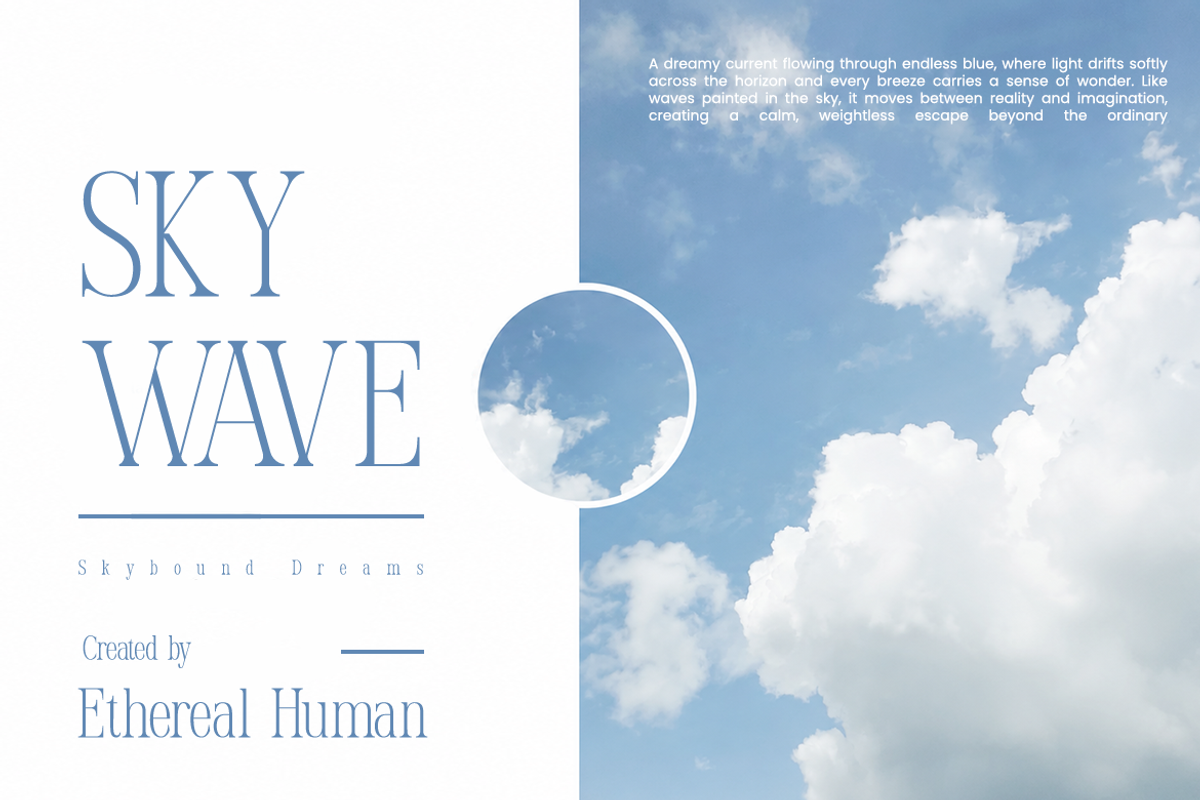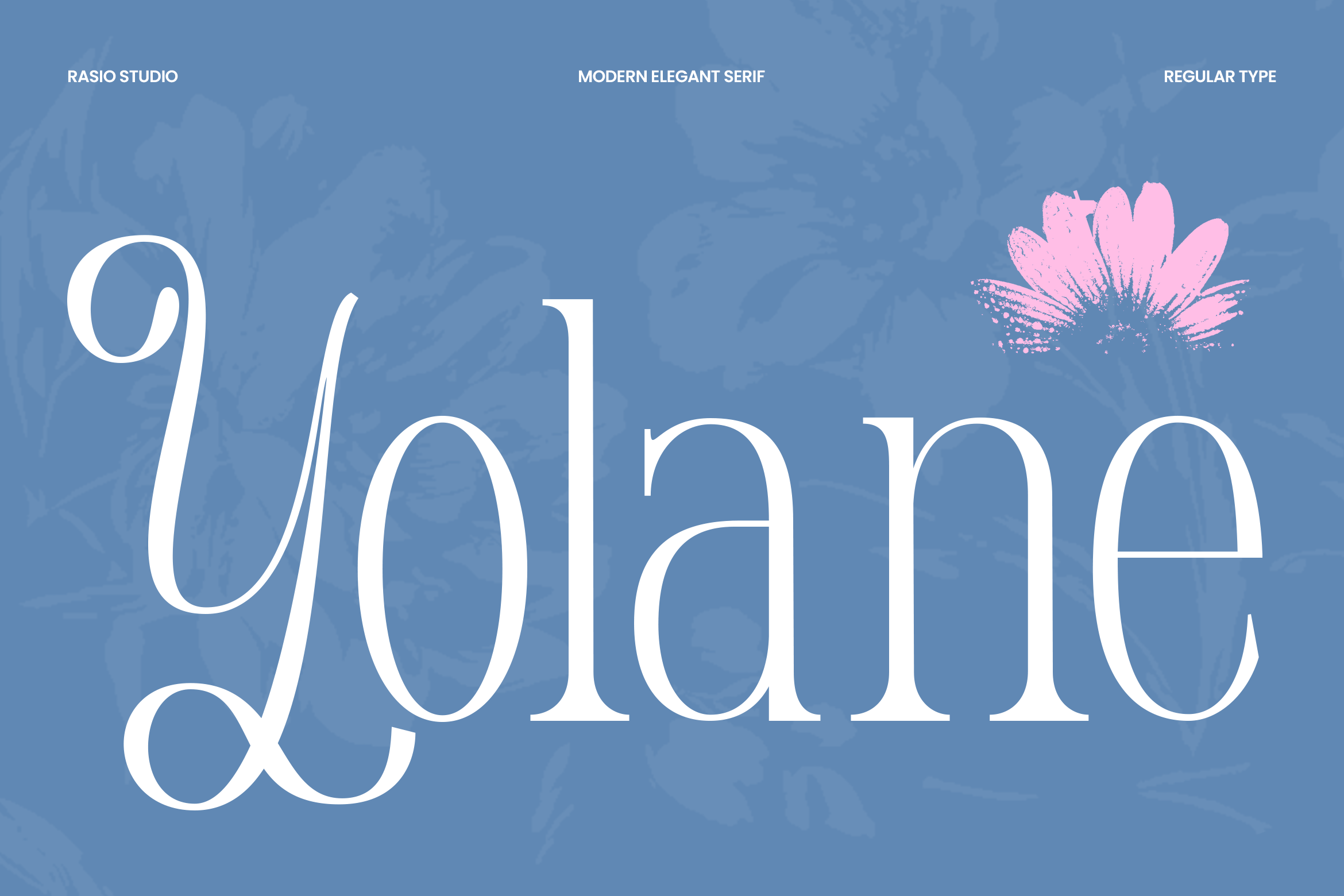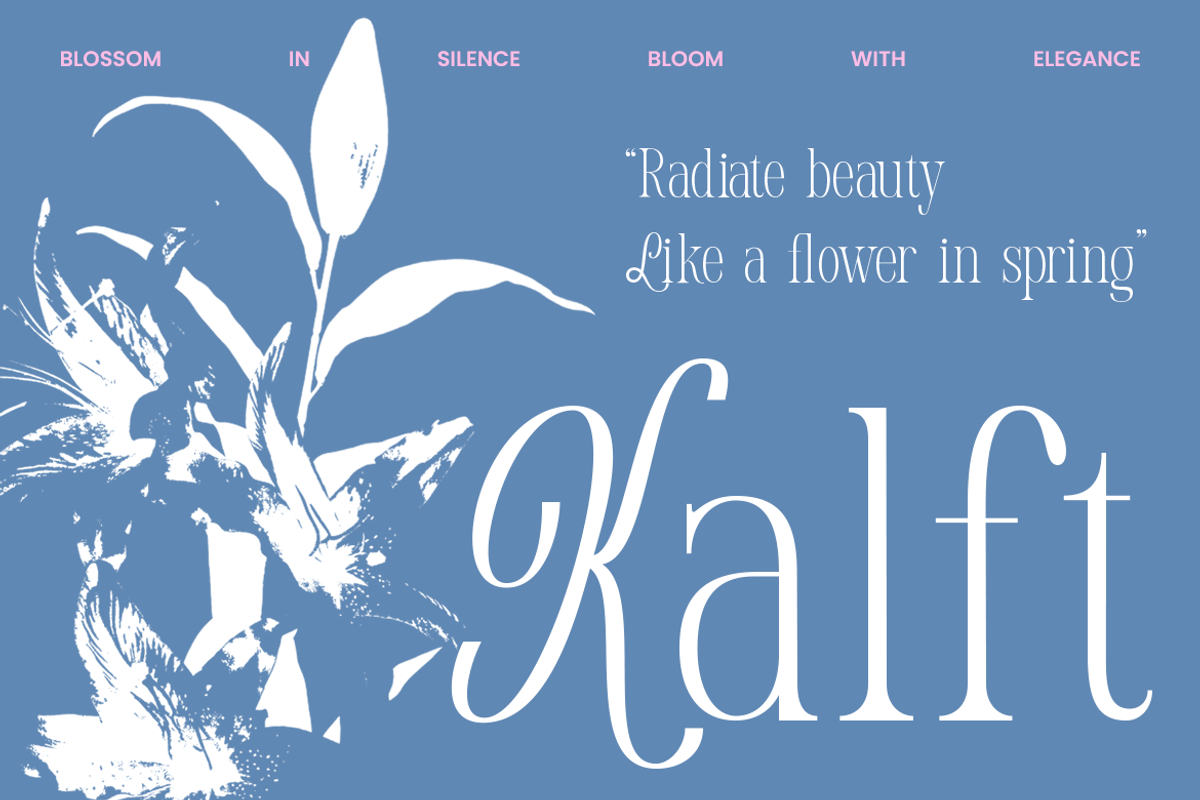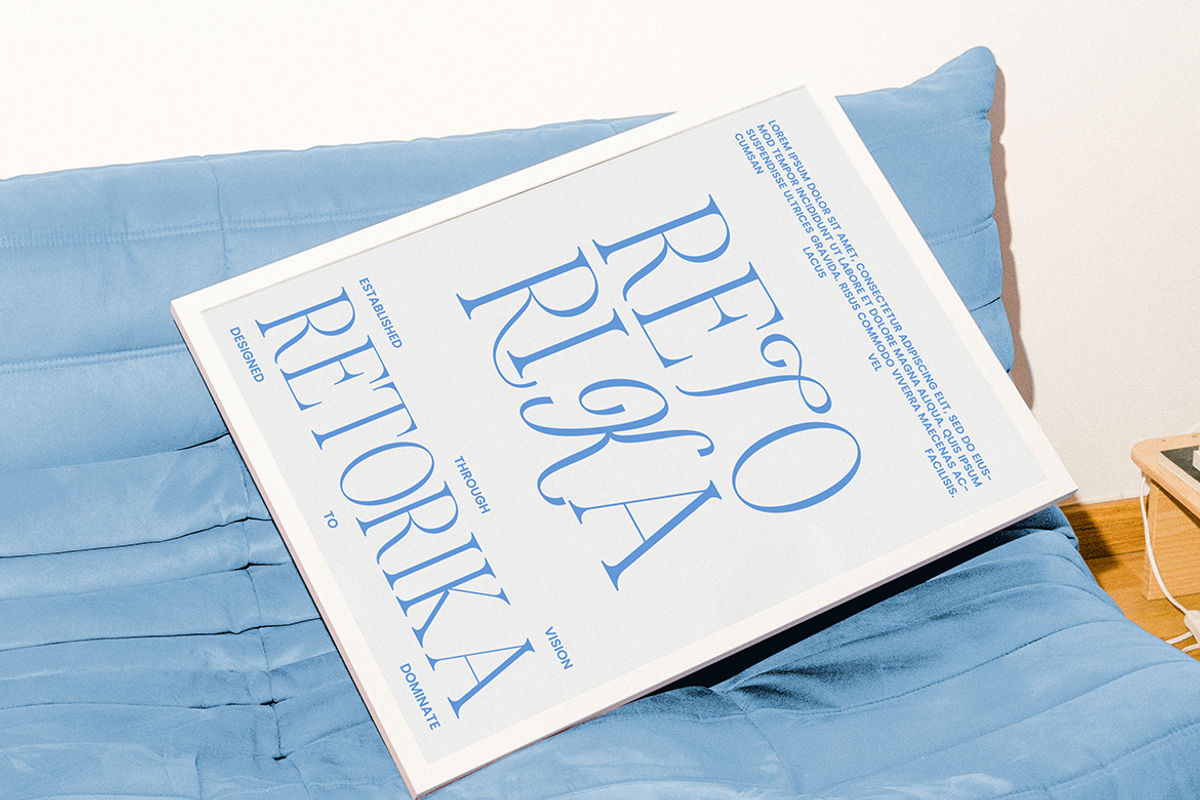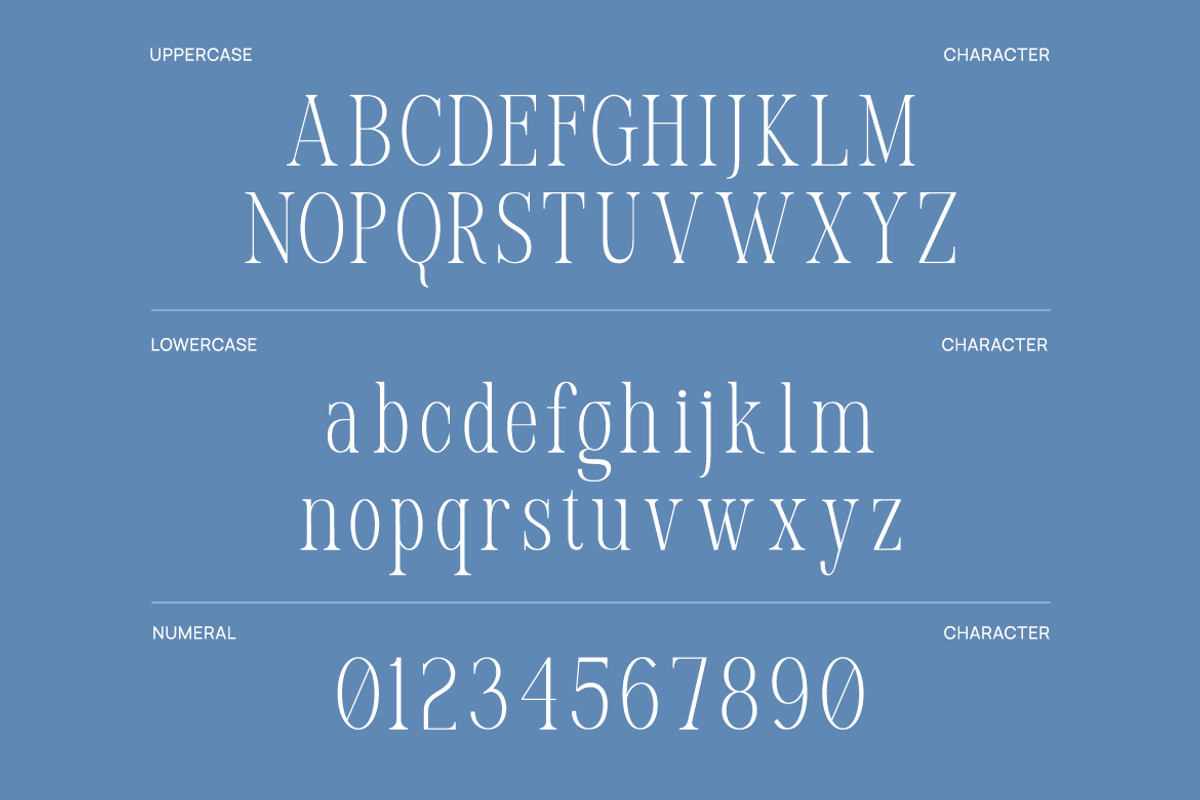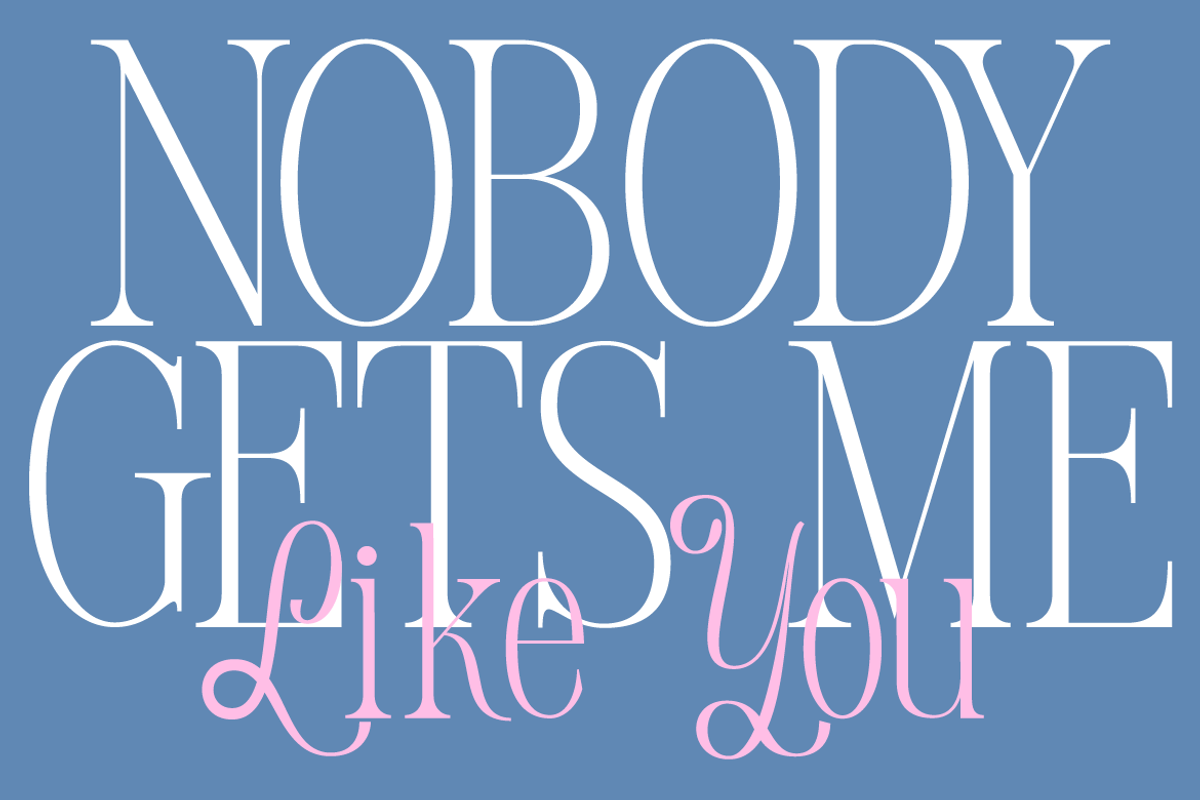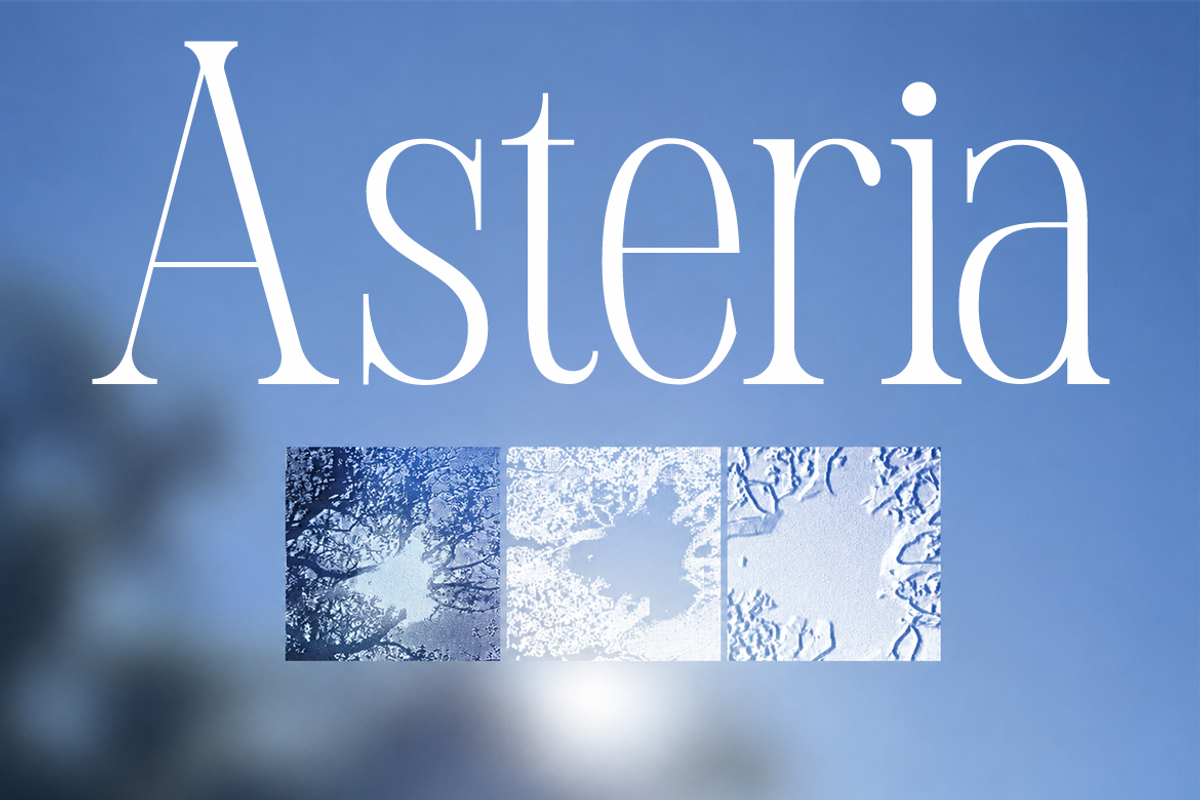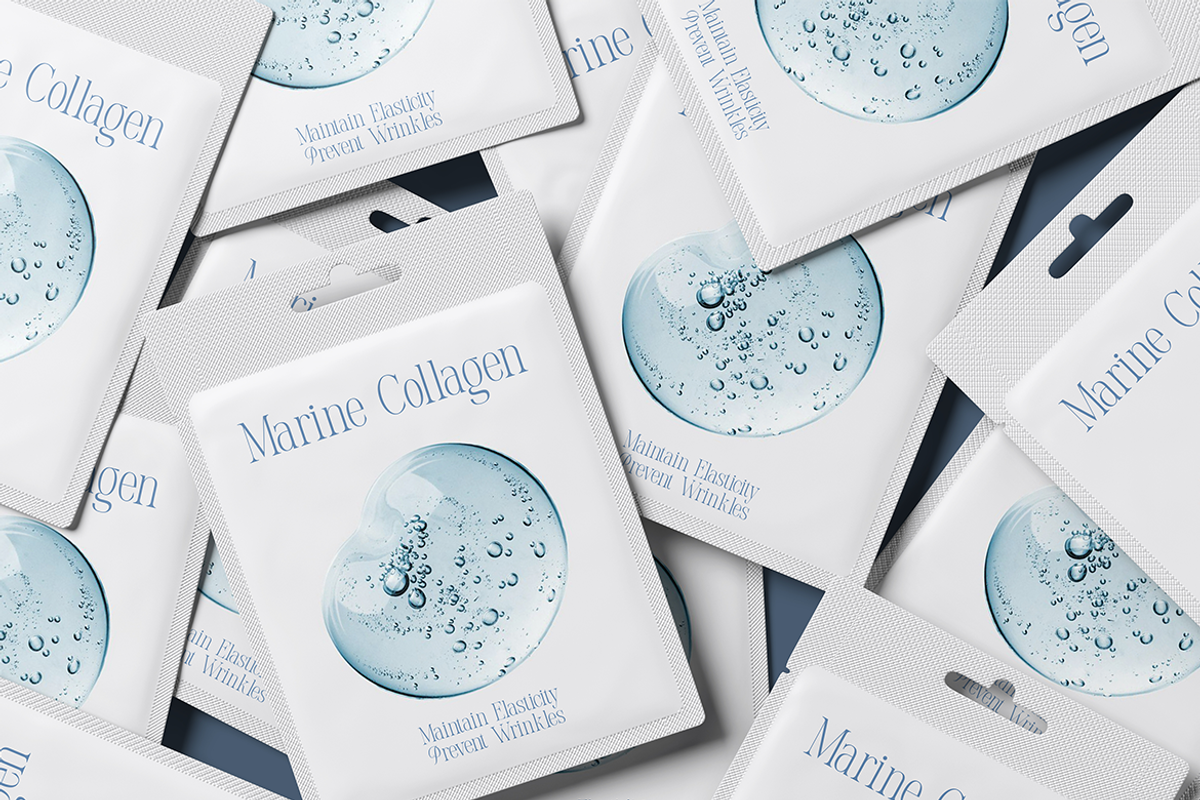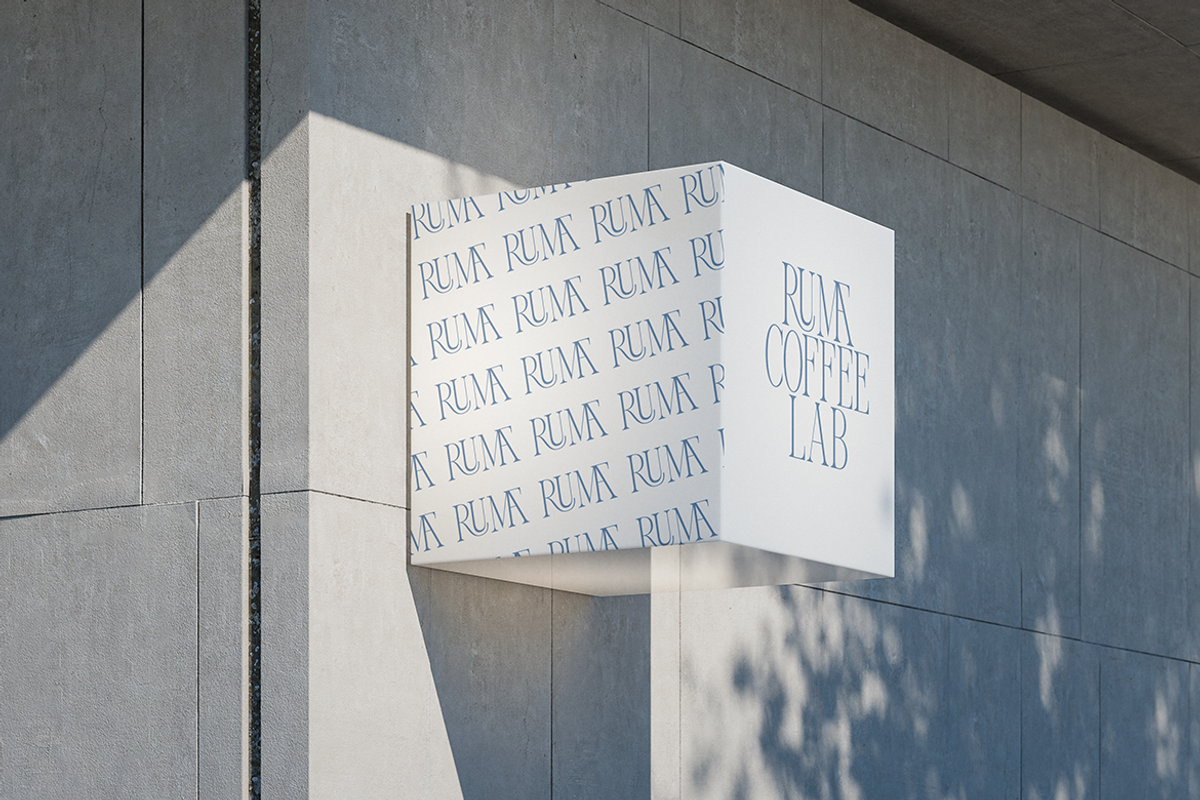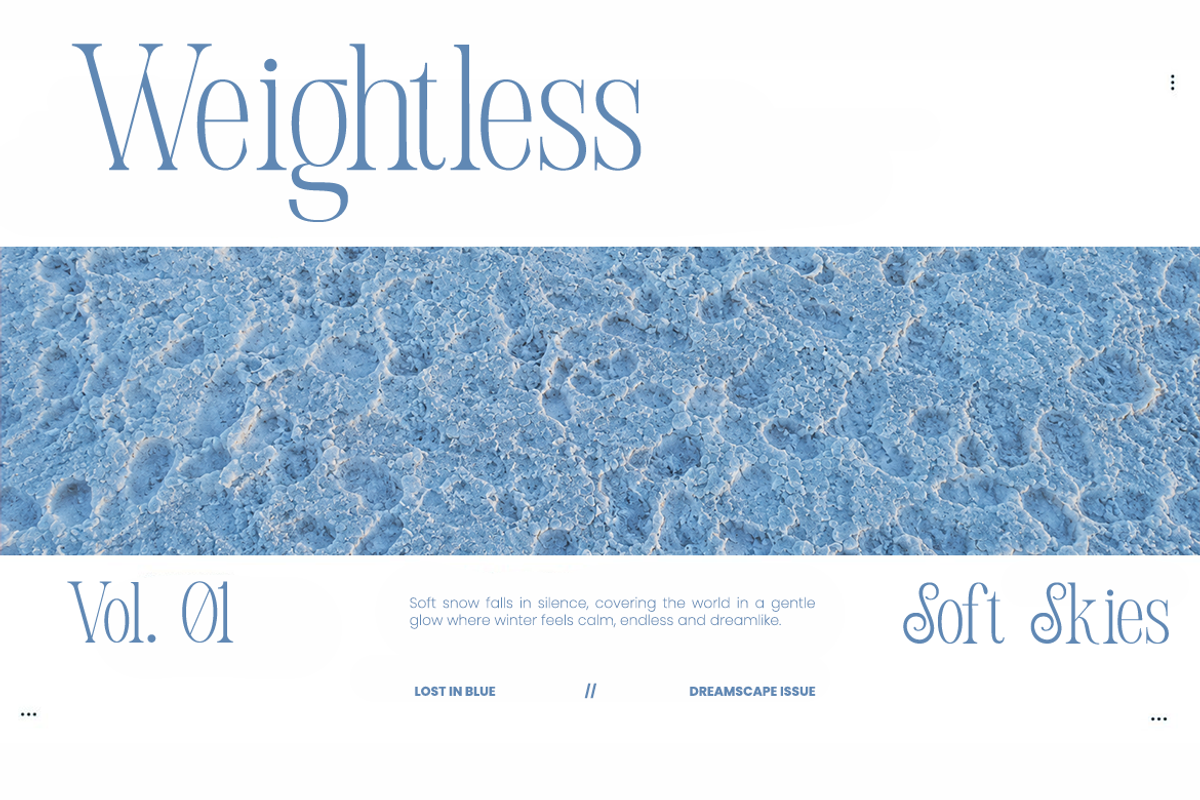
Yolane Modern Elegant Serif Font
Yolane Elegant Modern Serif is a refined serif typeface distinguished by its delicate contrast, graceful proportions, and sophisticated character details. The font combines slender strokes with carefully crafted curves, creating a light and airy appearance that feels polished and expressive. Subtle decorative elements, including the distinctive swash-inspired uppercase forms and elegant terminals, add personality without overwhelming the overall composition. The balanced structure allows each letterform to maintain clarity while contributing to a visually distinctive and memorable typographic style.
Designed for projects that value refinement and visual charm, Yolane performs beautifully across branding, editorial design, packaging, invitations, and promotional materials. The graceful letterforms create striking logos, wordmarks, and headlines, while the decorative details add character to magazine layouts, product labels, stationery, and social media graphics. Its sophisticated silhouette enhances visual hierarchy and brings a sense of artistry to both print and digital applications, making it an excellent choice for creative projects that require typography with elegance, personality, and timeless appeal.
High-contrast serif construction with delicate thick-to-thin stroke transitions
Gracefully elongated letterforms that create an airy and sophisticated appearance
Refined swash-inspired capitals that add elegance and visual distinction
Slim vertical proportions that enhance editorial and fashion-oriented aesthetics
Soft curved terminals balanced with precise serif details for subtle character
Fashion branding and boutique identity systems with a refined visual presence
Beauty, skincare, fragrance, and cosmetic packaging projects
Editorial magazines, feature headlines, and publication cover designs
Wedding stationery, invitation suites, and ceremonial branding materials
Logo design and wordmark creation enhanced by graceful serif details
Supports numerals, punctuation, and extensive symbol set
Create memorable impressions with Yolane, where delicate details and flowing forms